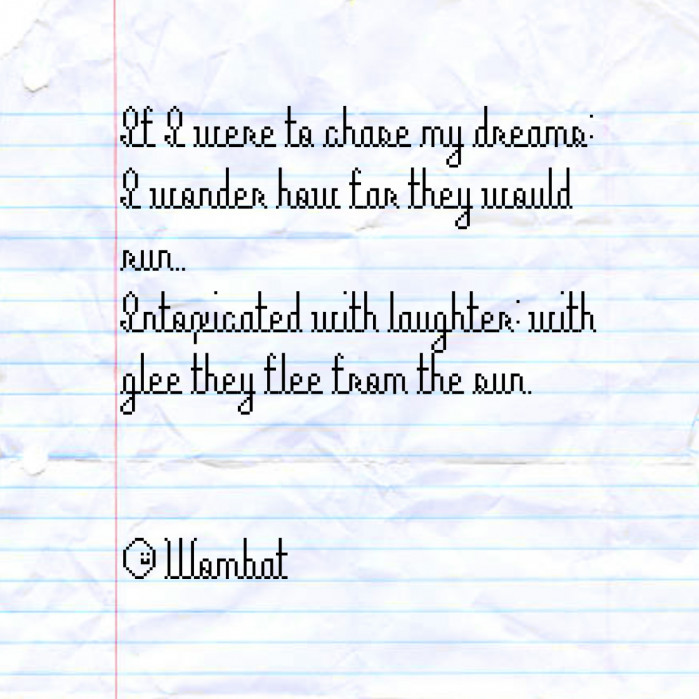
• First take on a pixel cursive. Not gonna change anything, as it’s just a quick trial run. Take it or leave it! -wombat
A poem by Wombat typed in wombat.